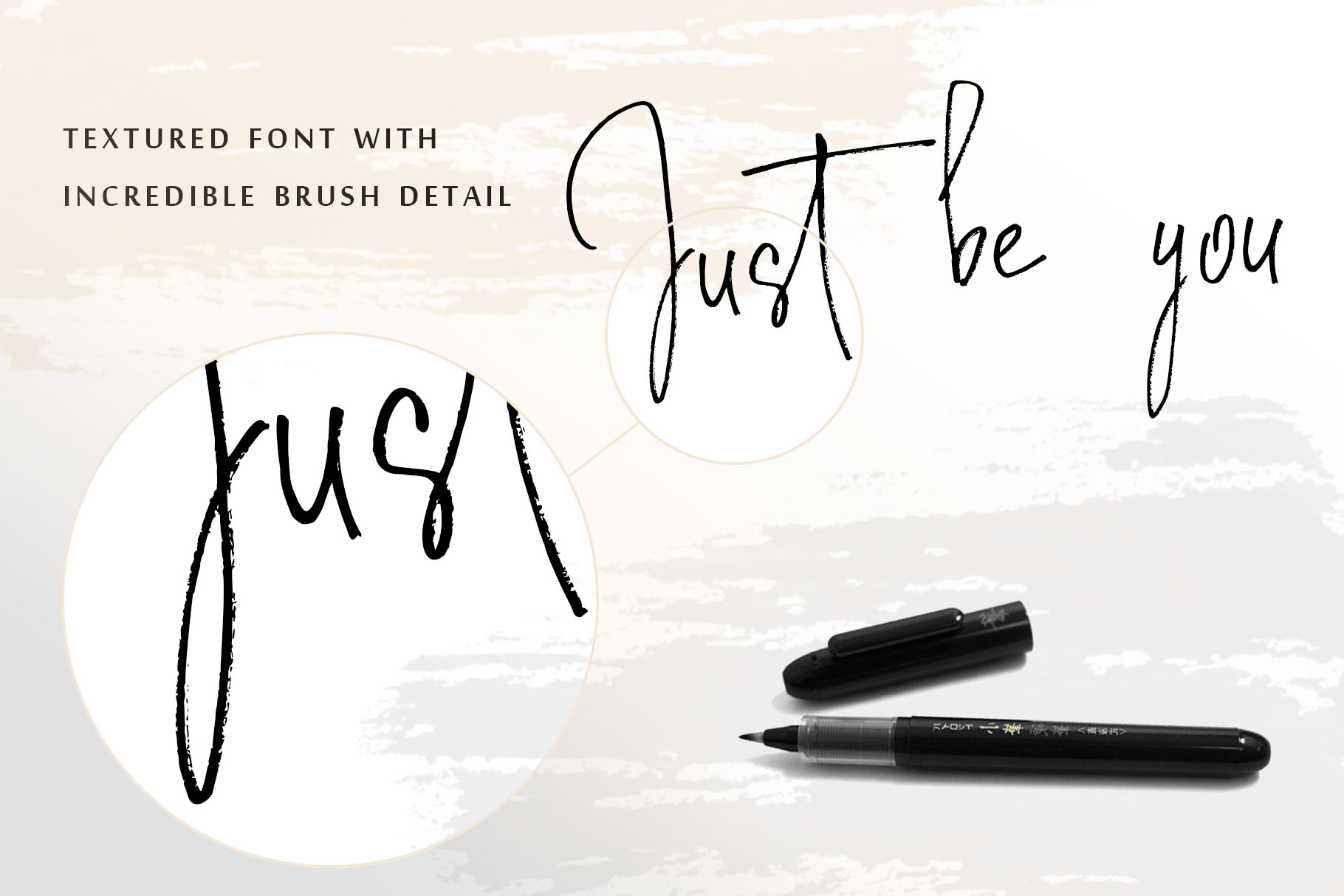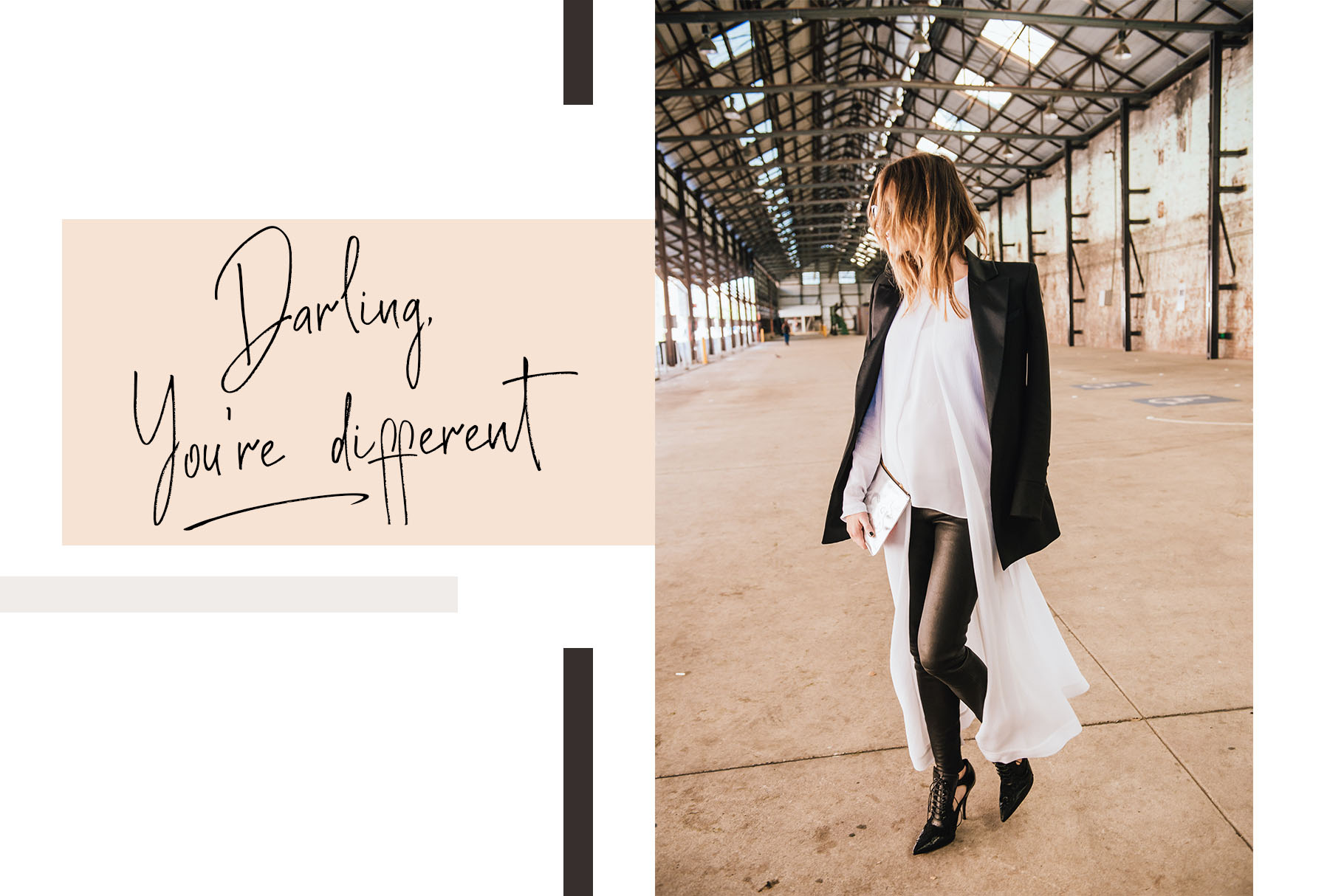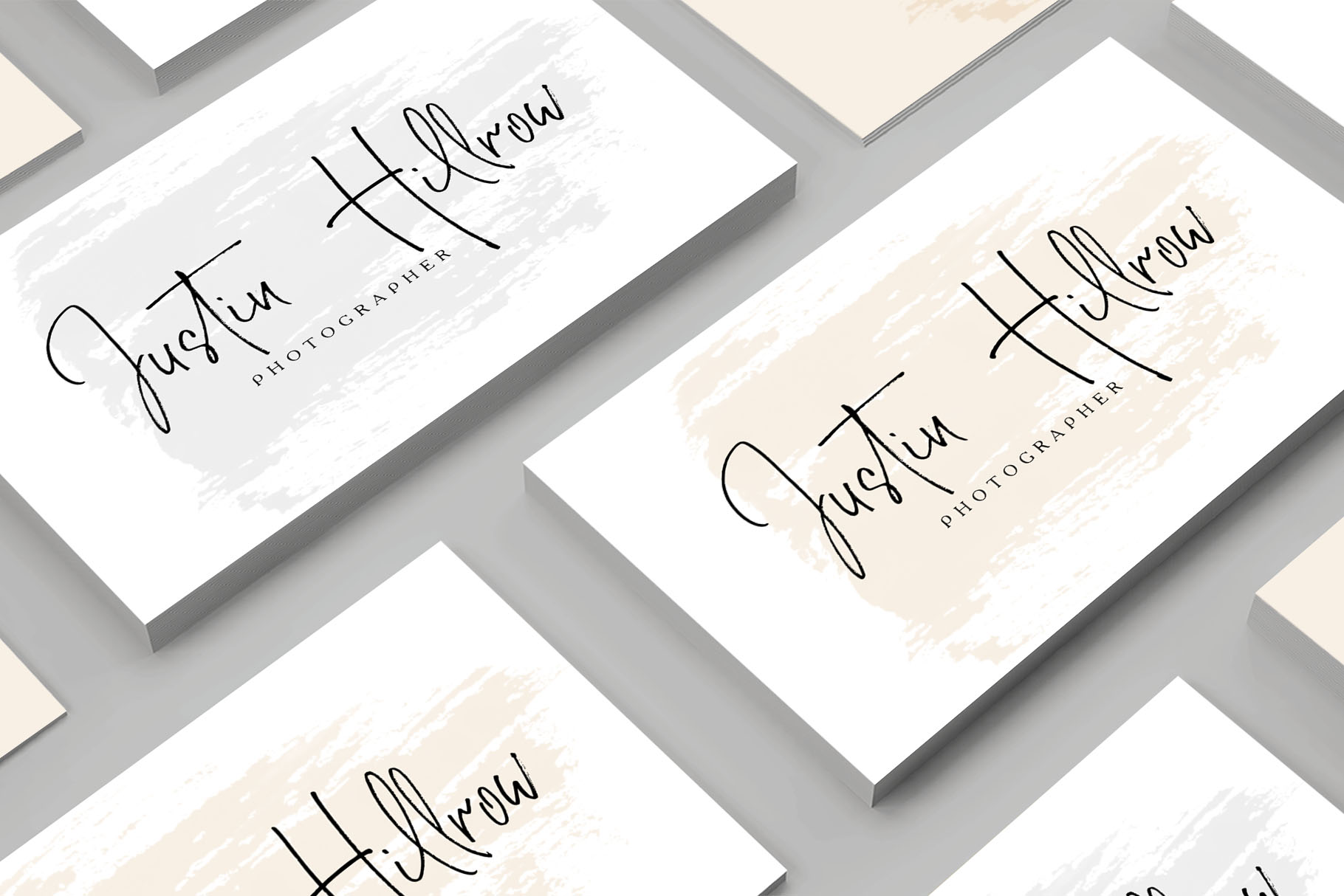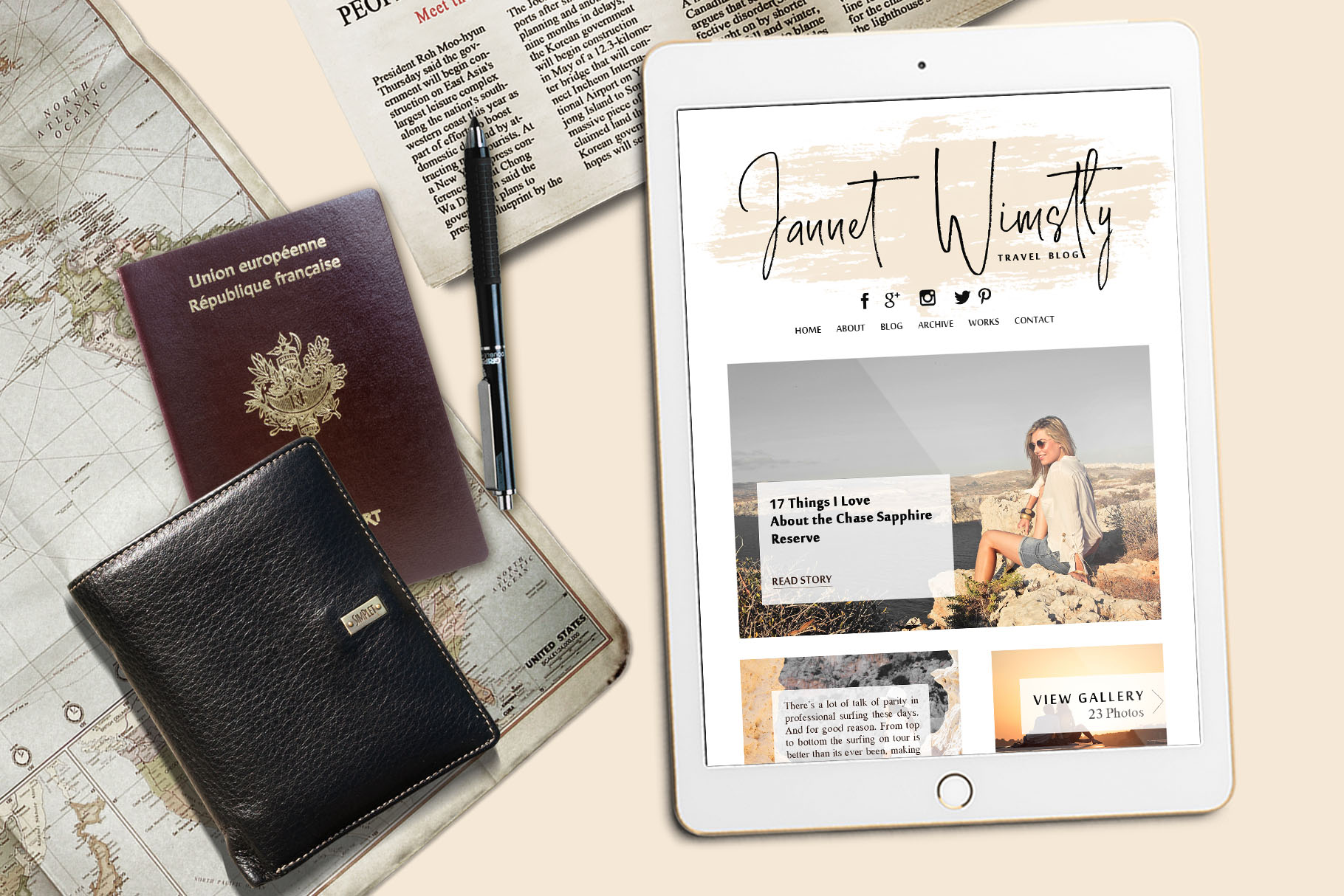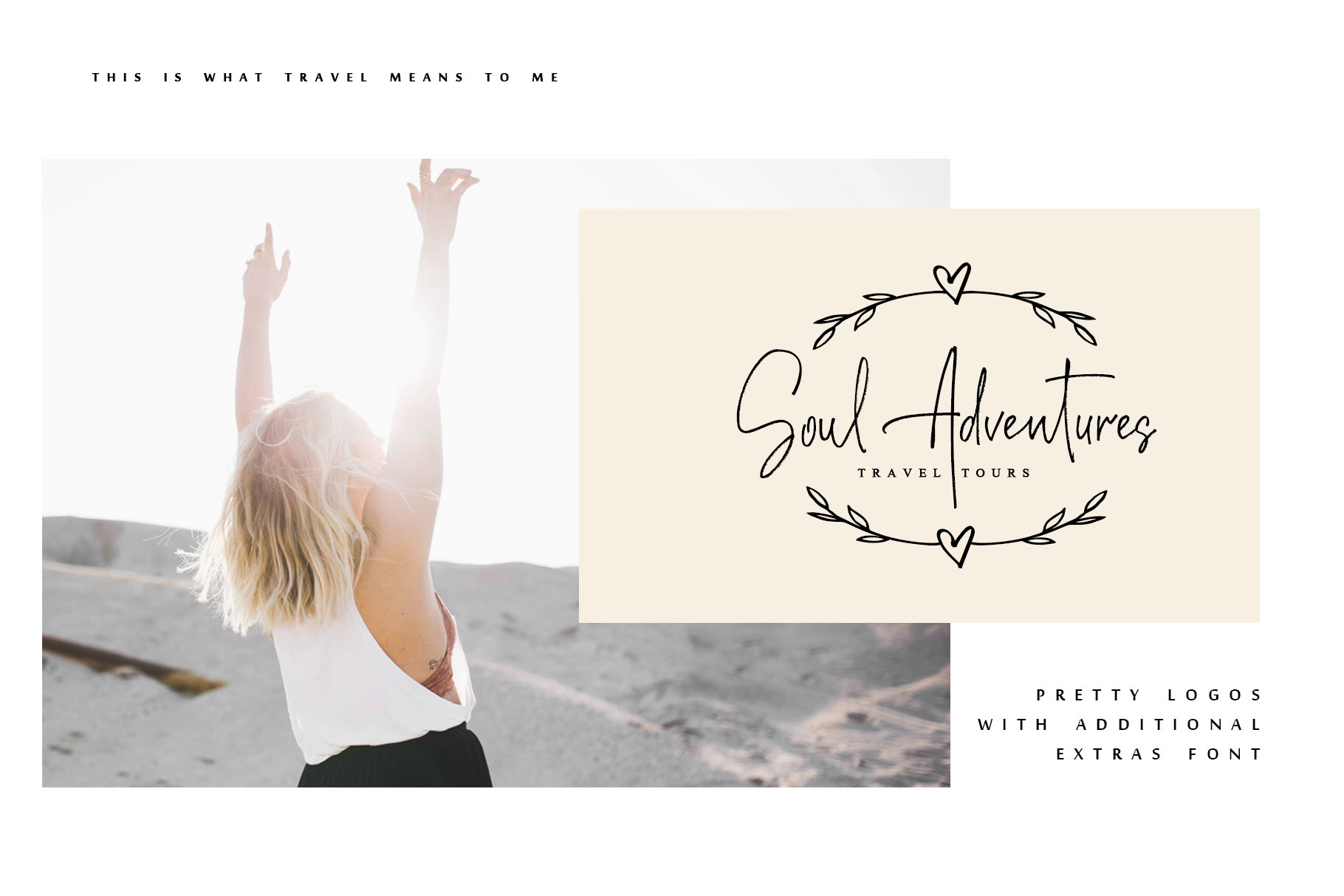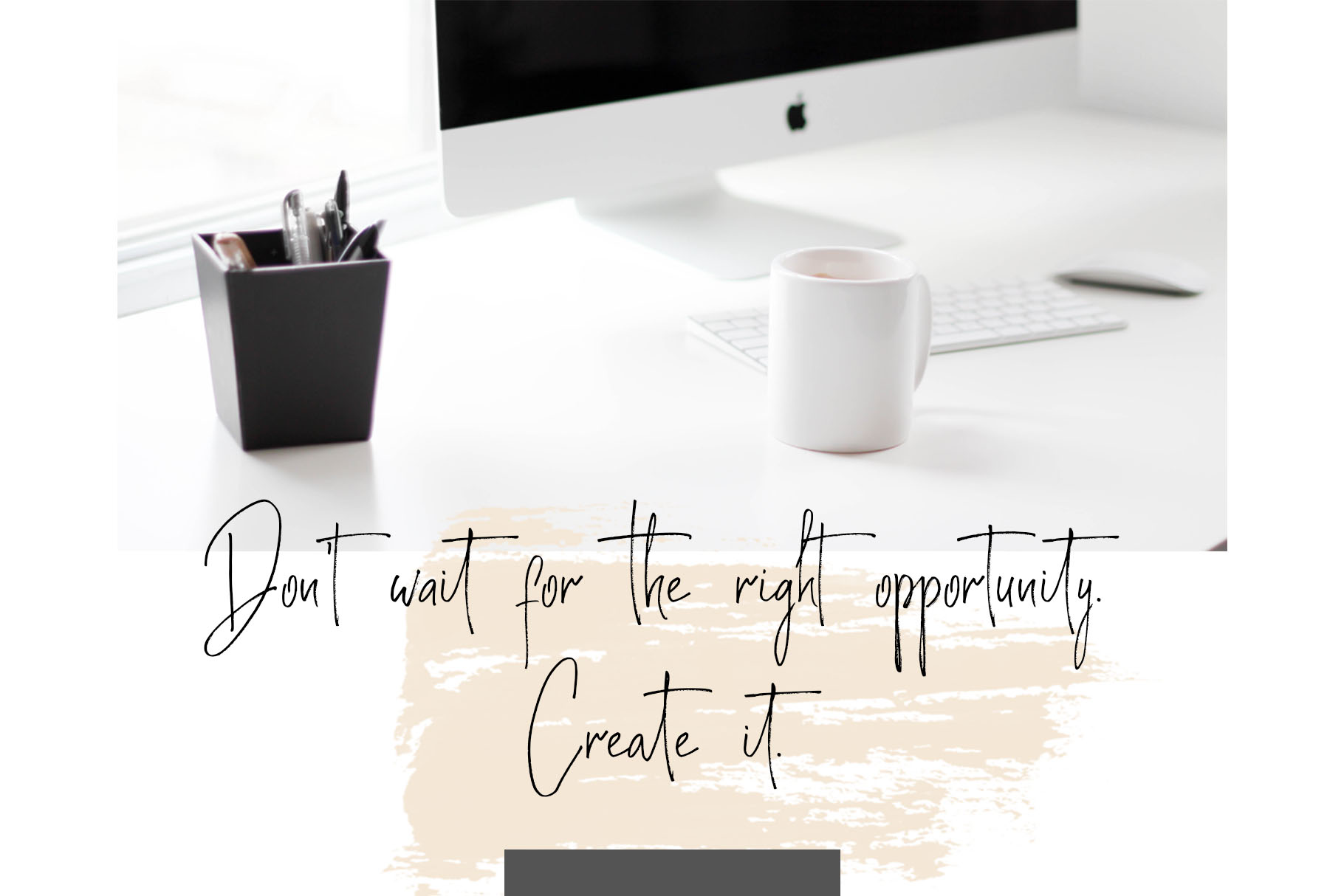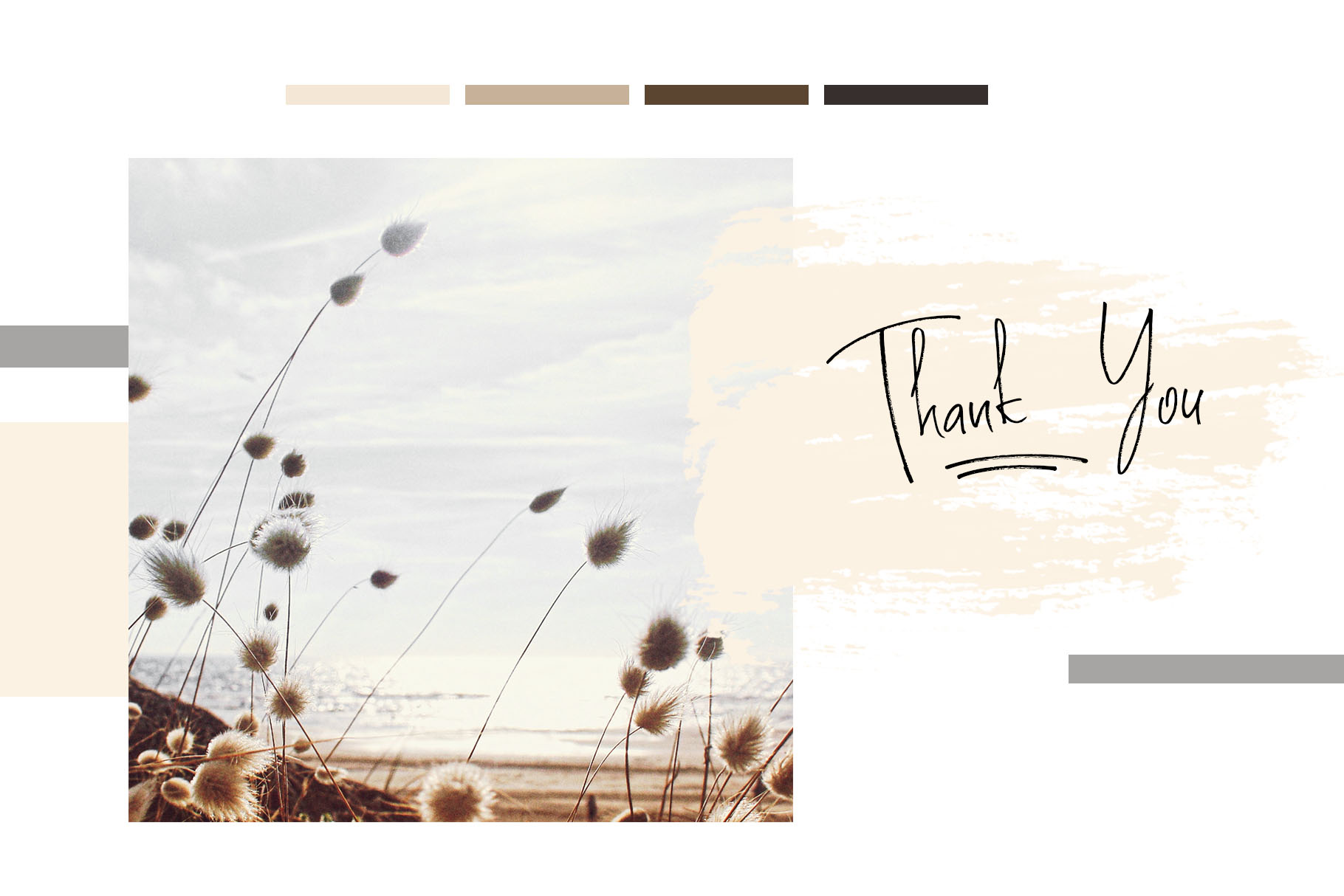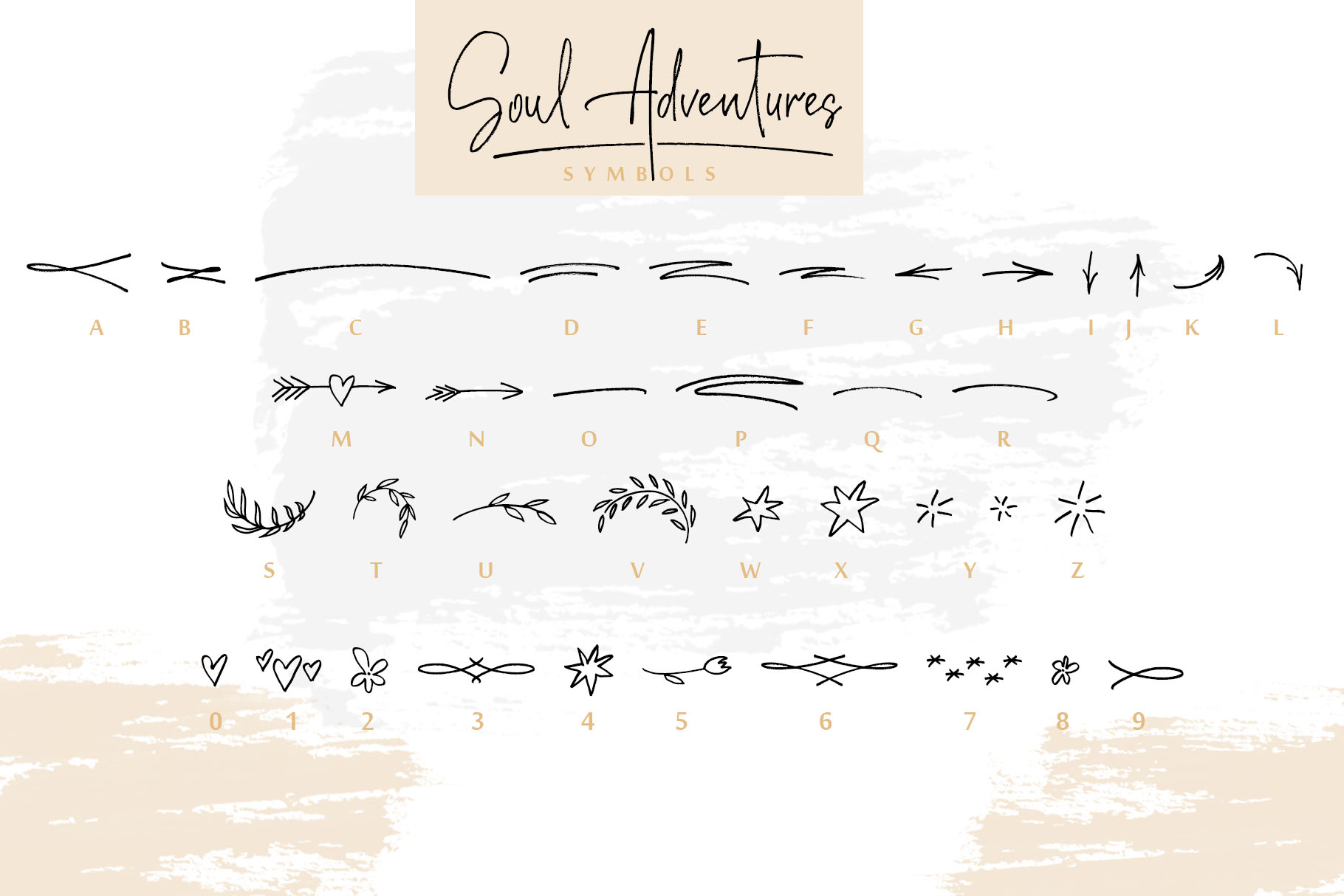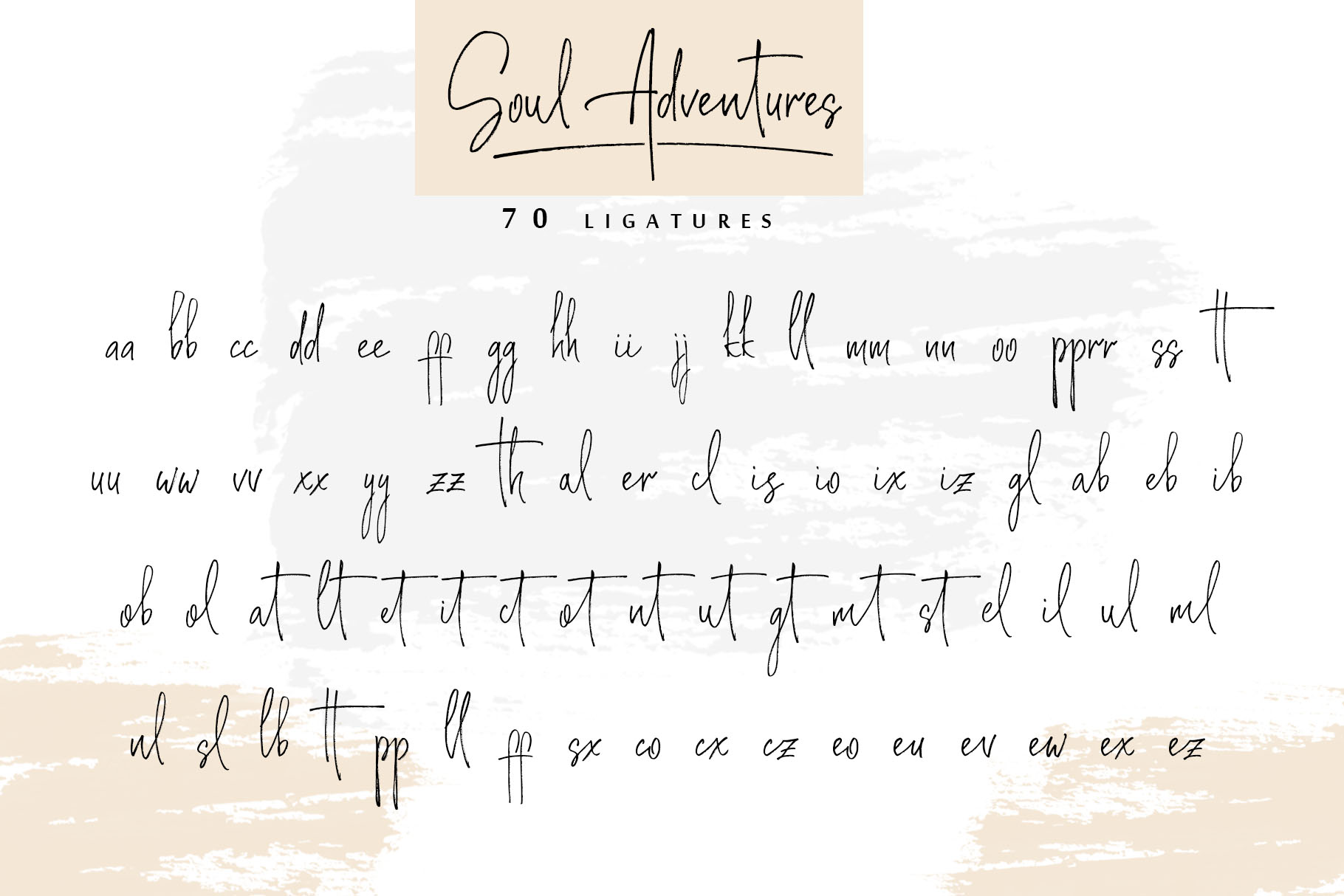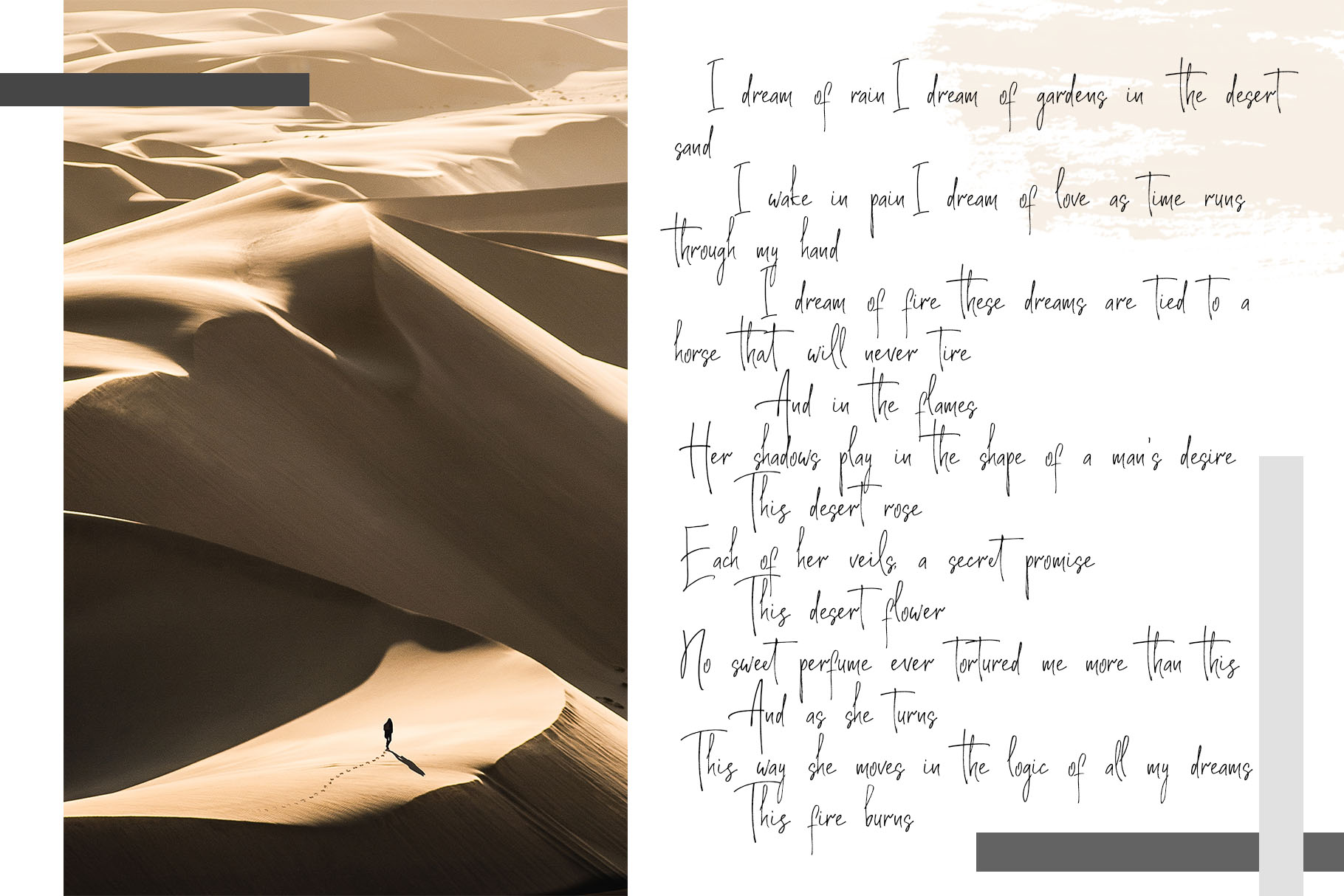
Soul Adventures Font
About Soul Adventures Font
Soul Adventures is a beautiful handstyled font that is perfect for a wide range of creative projects. This textured script is a great way to amplify the style and presence of your designs without feeling too formal or stuffy.